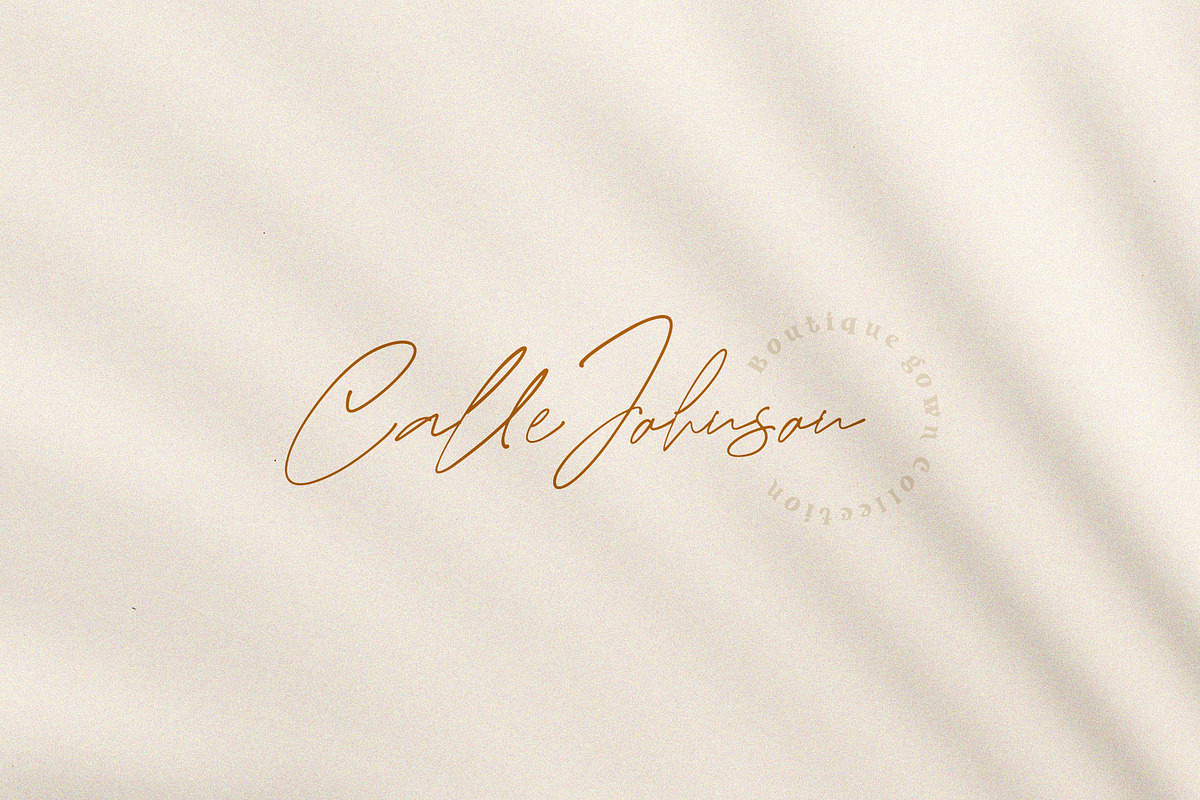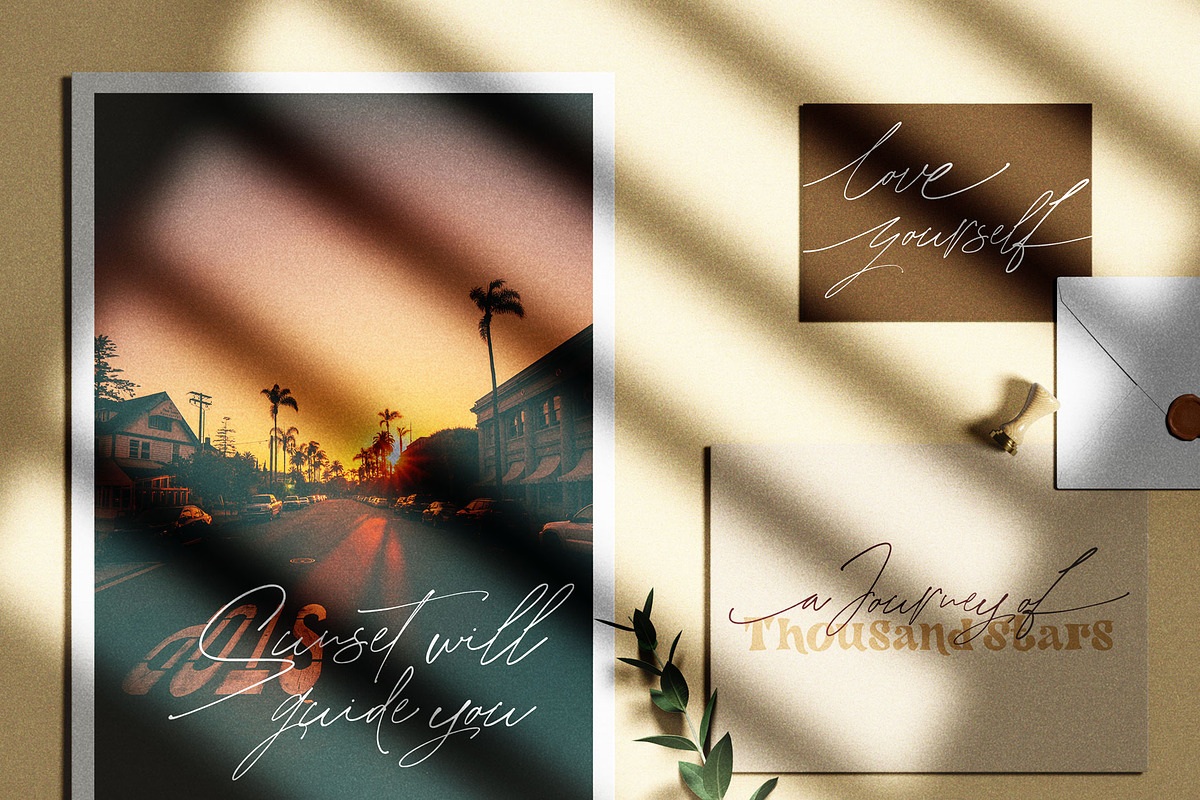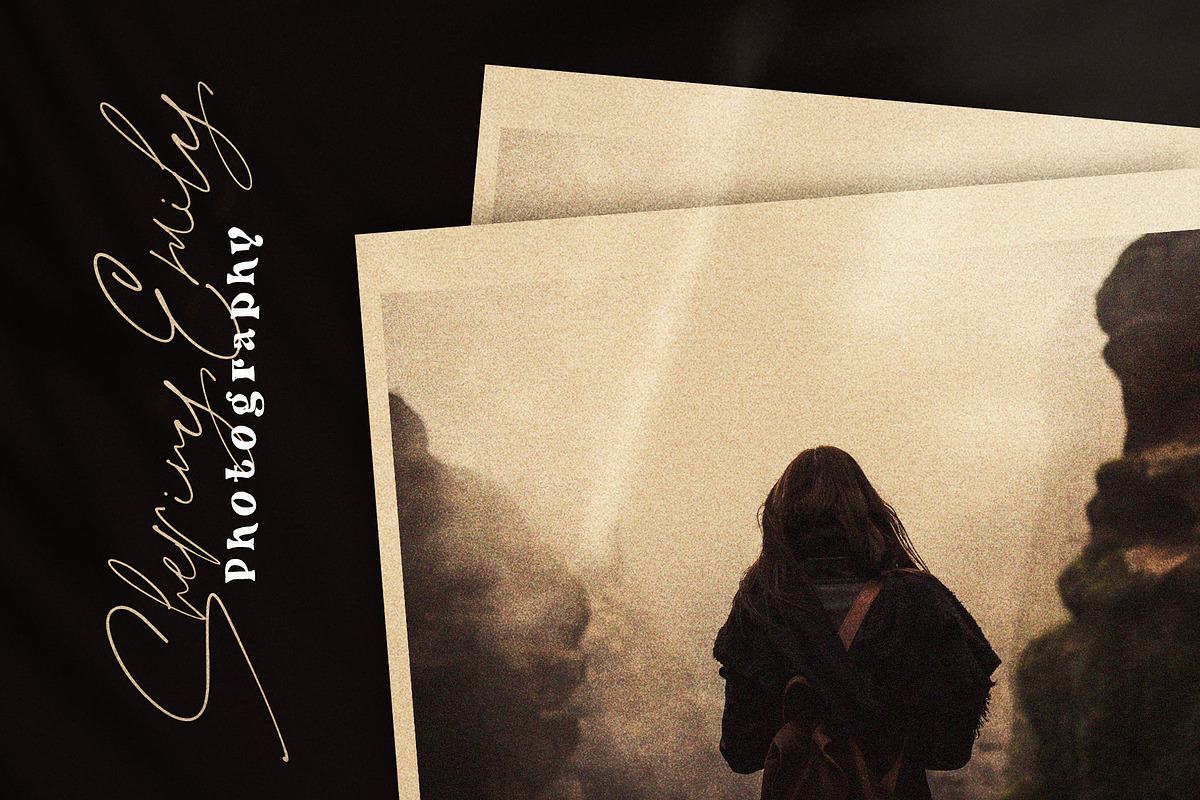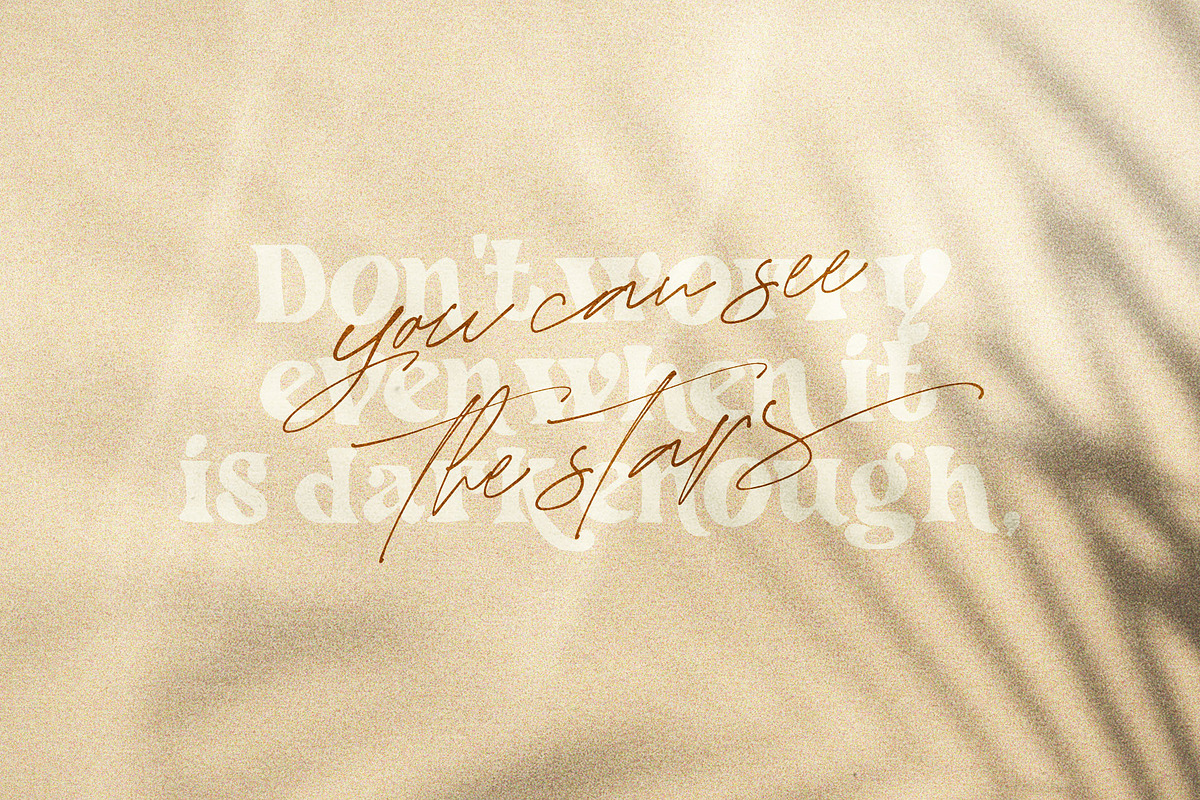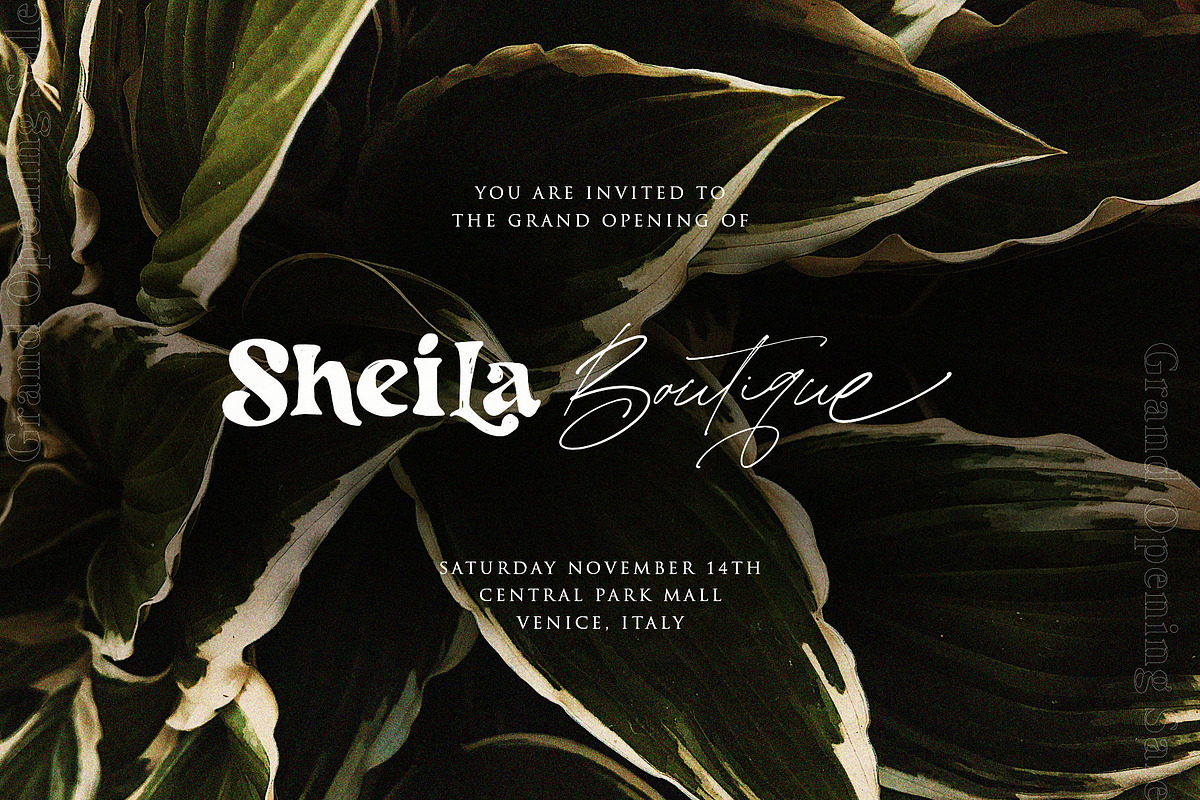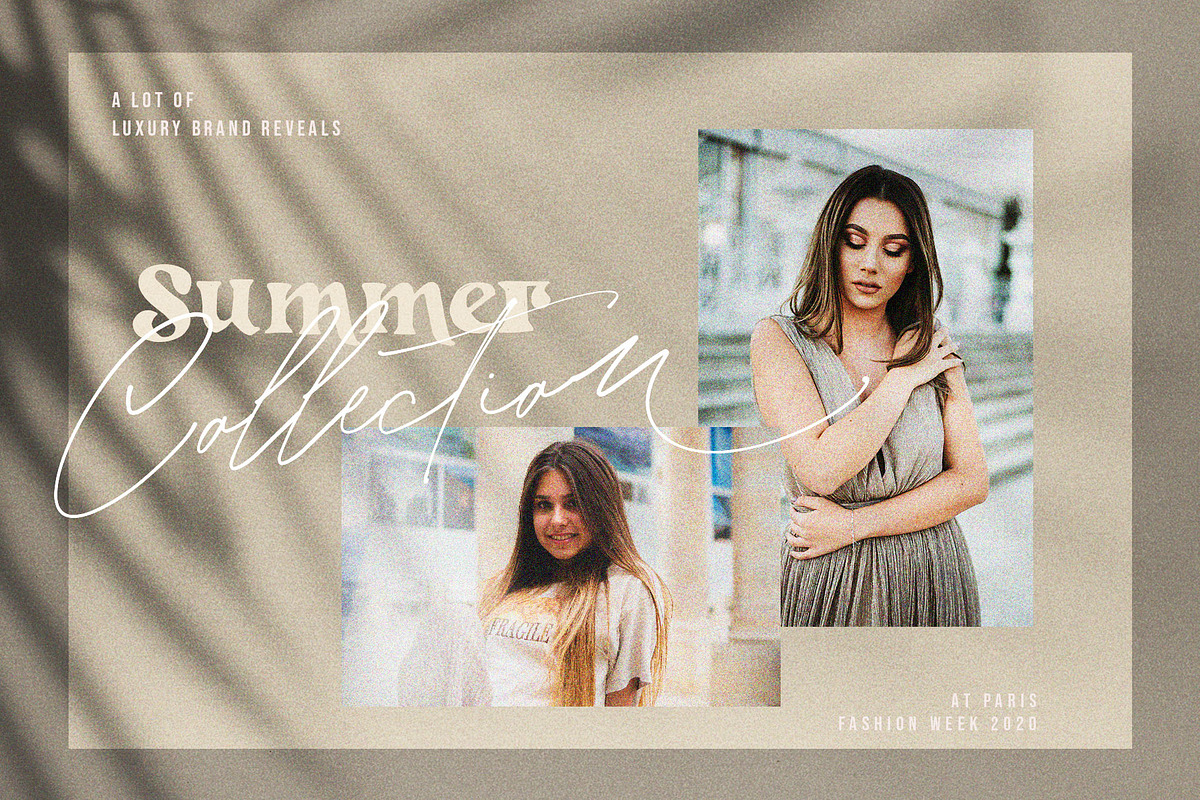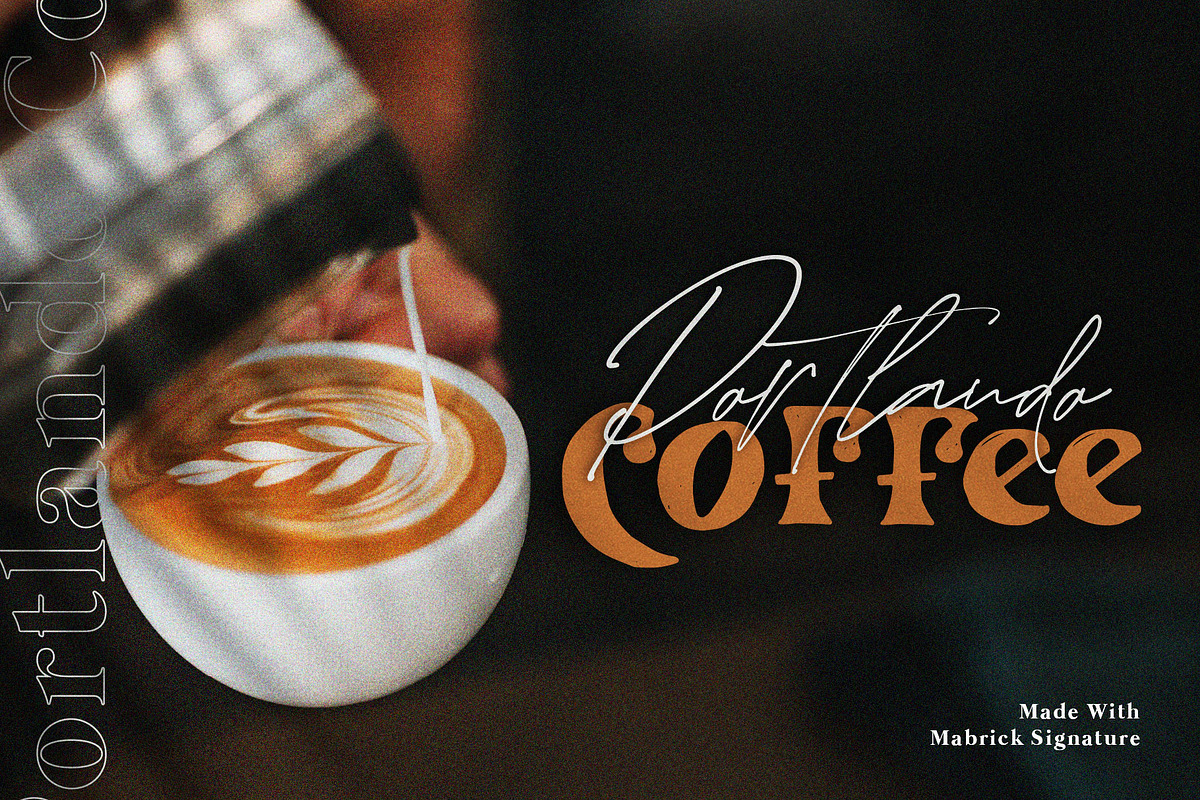
Mabrick - Font Duo
Mabrick is a playful font duo that includes a signature script and a hand-drawn serif – already matched up and ready to be used together for your next design!
Mabrick - Font Duo by Dirtyline Studio fits naturally into Branding, posters, packaging, typography.